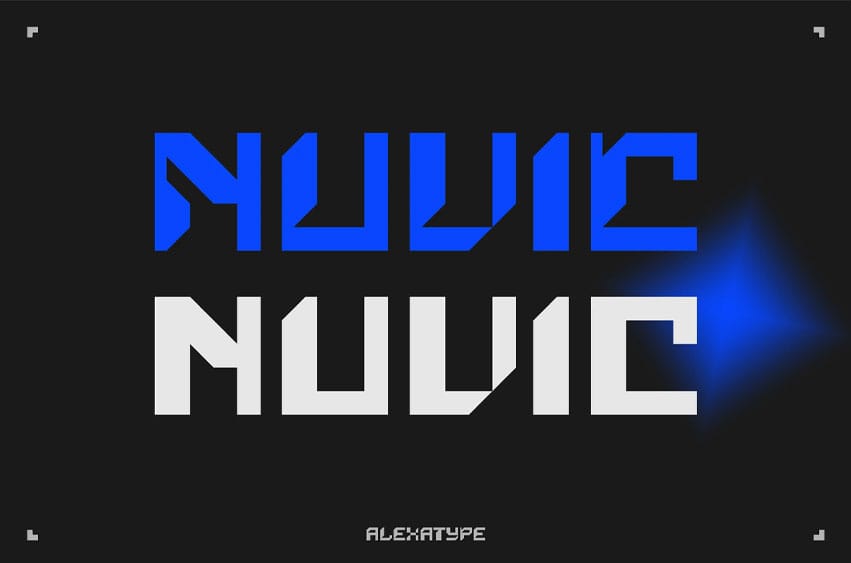
Nuvic Font is a bold, futuristic typeface built for tech-forward brands, digital UI, and high-impact displays. Its modular geometry and engineered precision give off an advanced yet highly legible look, perfect for interfaces that demand clarity and boldness. The angled cuts, squared bowls, and mechanical balance create a tone of efficiency, control, and innovation.
Whether you’re designing for a software launch, coding conference, wearables UI, or VR gaming platform, NUVIC delivers clean communication with cutting-edge personality.
Tech brands, cybersecurity firms, and digital creators will find NUVIC the ideal voice for establishing authority and modernity. Its compact rhythm and engineered structure make it excellent for dashboard UI, promo posters, system labels, and futuristic packaging. From aerospace startups to AI solutions, NUVIC sets a tone of readiness and intelligence.
- Modular Futurism – Geometric letterforms with crisp edges and tight structure
- Digital-First Clarity – Built for app UI, digital dashboards, and signage systems
- All-Caps Focus – Creates uniformity and strength in titles and headlines
- Interface Ready – Perfect for hardware display, smartwatches, and tech banners
- Extended Use – Ideal for branding tech products, cybersecurity, VR/AR, and AI devices